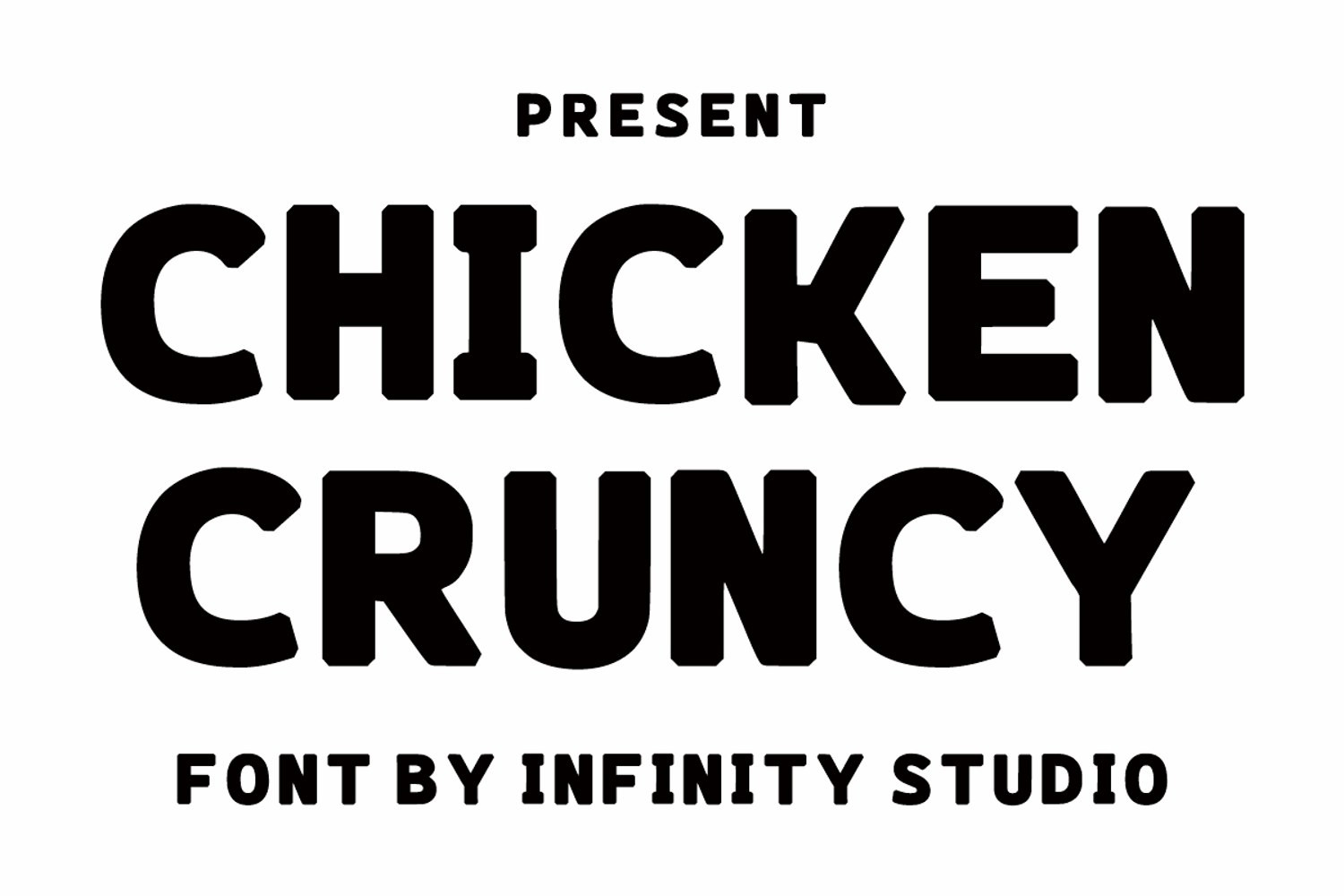
Chicken Cruncy
Chicken Cruncy is a playful bold, and childish font, easy-to-read display font that conveys impeccable friendliness. Whether you’re using it for crafts, logos, digital design, presentations, or greeting cards, this font has the potential to become your favorite go-to font.
Infinity art Studio